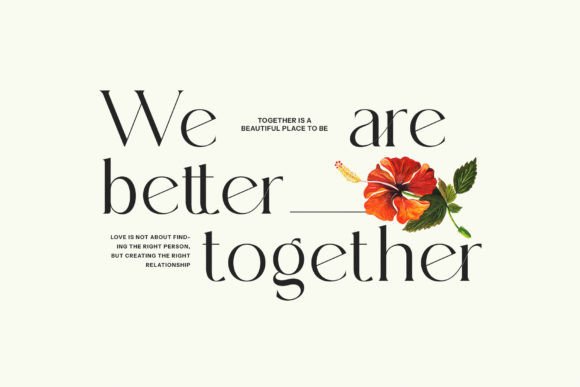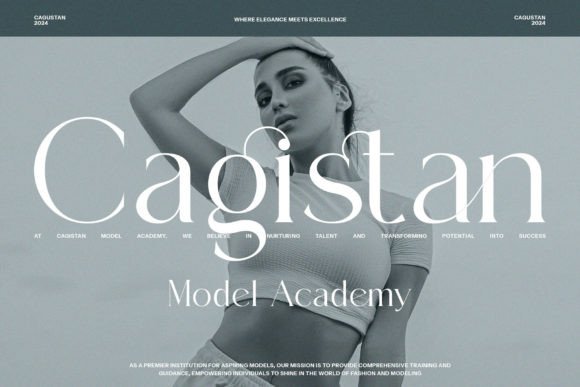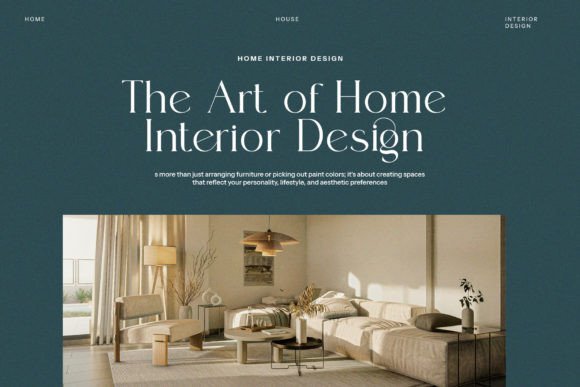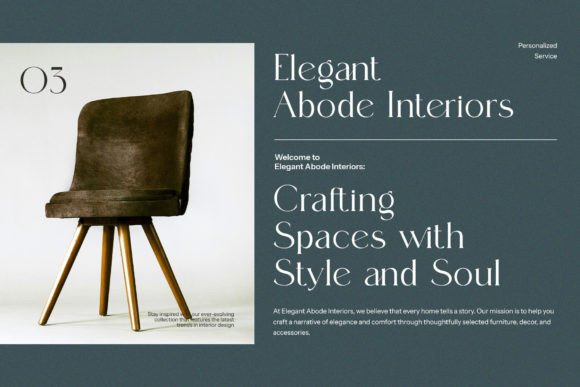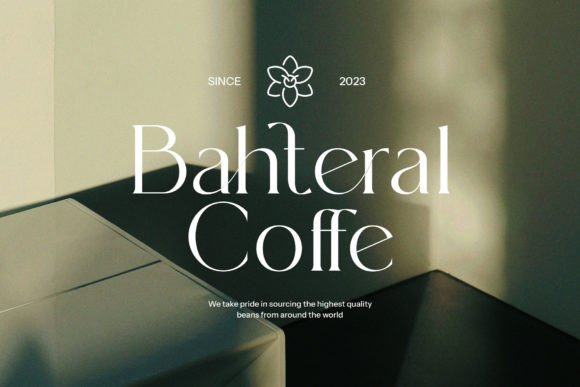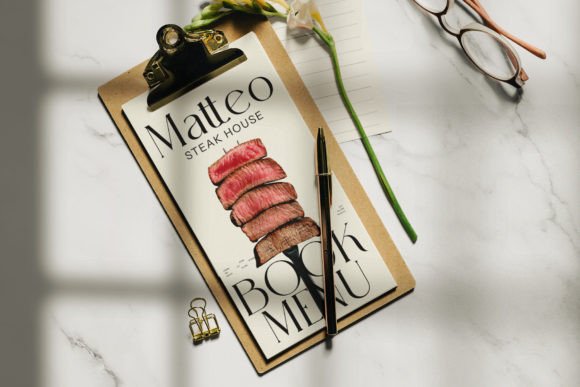
Introduction to Mofllig Font
Imagine you’re brainstorming ideas for your next design project, and you need a font that exudes luxury and elegance. You’re scrolling through your design resource library, searching for the perfect font to match your creative vision. Suddenly, you stumble upon the Mofllig Font – a beautiful, high-quality serif font that’s sure to elevate your design to the next level.
The Mofllig Font is more than just a pretty face; it’s a valuable design tool that offers a range of unique ligature and alternate options. Whether you’re working on a branding project, creating a logo, or designing social media posts, this font is sure to impress. Its versatility and high readability level make it an ideal choice for designers who want to create stunning visuals without compromising on quality.
Key Features of Mofllig Font
- High-quality, unique design suitable for various creative projects, including graphic design, digital art, and typography.
- Features a transparent background, making it easy to use as a design resource in various backgrounds and compositions.
- Includes a range of characters, including uppercase and lowercase letters, numbers, and punctuation marks, making it a comprehensive design resource.
- Designed with a high resolution of 300 DPI, ensuring crisp and clear text display, even in large formats.
- Perfect for designers and artists looking for a unique, high-quality font to enhance their creative projects and designs.
Honest Review: Mofllig Font
I recently stumbled upon the Mofllig Font, and I must say it’s a great addition to any design resource library. The high quality of this font is immediately apparent, with clean lines and a unique aesthetic.
Here are some things that work well for the Mofllig Font:
- Unique and stylish design
- High quality and crisp lines
- Transparent background for versatility
- Limited font weights and styles
- No extended character set for non-Latin languages
- May not be suitable for complex or technical content
Overall, the Mofllig Font is a solid choice for designers looking for a high-quality, free font to add to their creative project. While it may not be perfect, its unique design and transparent background make it a great addition to any design resource library.
Tips for Getting the Most Out of Mofllig Font
Use the Mofllig Font in combination with a transparent background to create a high-quality design resource. This font is perfect for creative projects that require a unique and eye-catching typography. You can also use it in conjunction with other design elements to create a cohesive and visually appealing design.